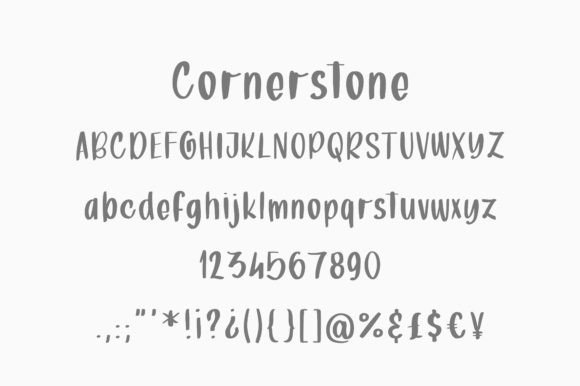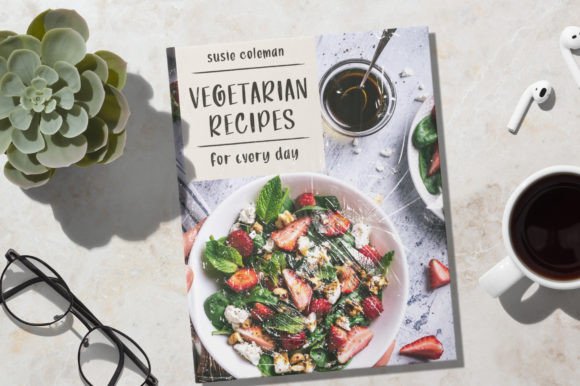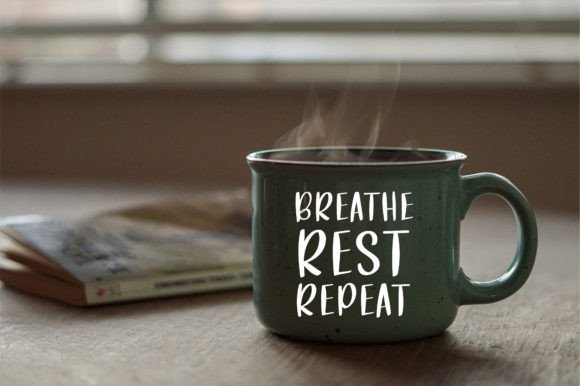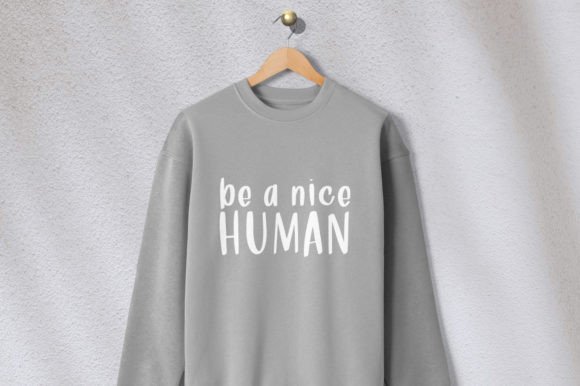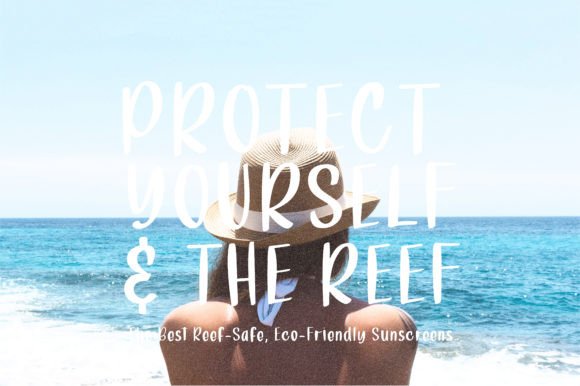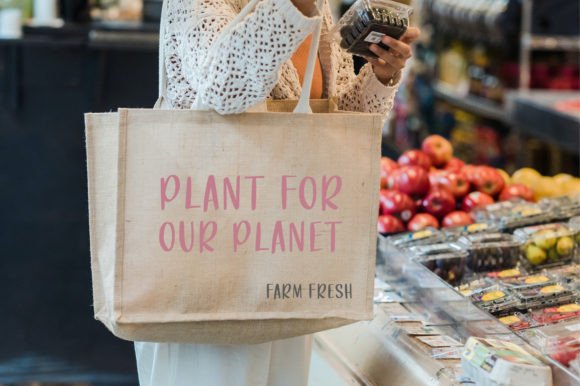
Introducing Cornerstone Font: The Ultimate Handwritten Font for Designers and Crafters
Are you tired of using the same old fonts for your designs? Look no further! Cornerstone Font is a friendly and quirky handwritten font that’s perfect for adding a personal touch to your projects. In this article, we’ll dive into the features and benefits of Cornerstone Font, and explore how it can elevate your designs to the next level.
What is Cornerstone Font?
Cornerstone Font is a beautifully crafted handwritten font that’s designed to be smooth and legible. Its unique and quirky style makes it perfect for a wide range of design applications, from packaging products and invitation cards to flyers, mockups, event posters, and more. Whether you’re a designer, crafter, or DIY enthusiast, Cornerstone Font is the perfect addition to your font collection.
Key Features of Cornerstone Font
- Smooth and Legible: Cornerstone Font is designed to be easy to read, making it perfect for body text and headlines.
- Quirky and Friendly: The font’s unique style adds a personal touch to your designs, making them stand out from the crowd.
- Balanced Character: Cornerstone Font has a beautiful and balanced character that fits well with a wide range of design styles.
- High-Quality Vibes: The font is perfect for designs that require a high-end feel, such as luxury packaging and branding.
Use Cases for Cornerstone Font
Cornerstone Font is incredibly versatile and can be used for a wide range of design projects, including:
- Packaging Products: Add a personal touch to your product packaging with Cornerstone Font.
- Invitation Cards: Create beautiful and unique invitation cards for weddings, parties, and other events.
- Flyers and Brochures: Use Cornerstone Font to create eye-catching flyers and brochures that grab attention.
- Mockups: Add a touch of personality to your mockups with Cornerstone Font.
- Event Posters: Create stunning event posters that showcase the details of your event in style.
Why Choose Cornerstone Font?
With so many fonts available, why choose Cornerstone Font? Here are just a few reasons:
- Unique Style: Cornerstone Font has a unique and quirky style that sets it apart from other fonts.
- High-Quality: Cornerstone Font is a high-quality font that’s designed to produce stunning results.
| Font Name | Cornerstone Font |
| Author | sunday nomad |
In conclusion, Cornerstone Font is an excellent choice for designers and crafters looking to add a personal touch to their projects. Its unique and quirky style, combined with its smooth and legible design, make it perfect for a wide range of design applications. Whether you’re creating packaging products, invitation cards, flyers, mockups, or event posters, Cornerstone Font is the perfect addition to your font collection.